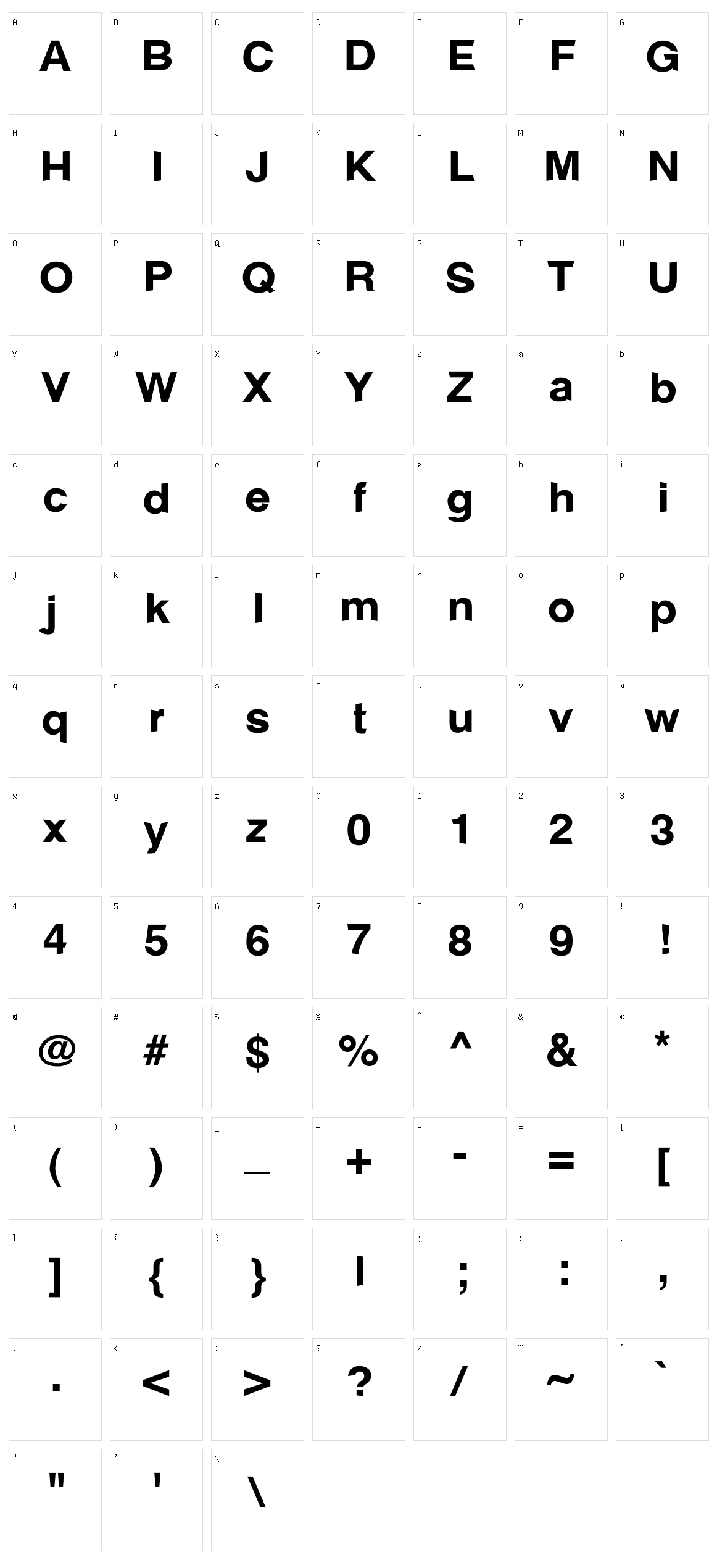
The free font Rayjoe is carefully designed by Joe Chau, showcasing a thoughtful balance of creativity and usability and falls under the Sans serif font style. When you download the ZIP file, it contains only 297.87 KB of font files, making it lightweight and quick to download. Please review the license details below to understand permitted usage and distribution rights. If license information is not available, we recommend using this font for personal projects only or contacting the author directly for commercial usage permissions.
Rayjoe is a font created by Joe Chau in 2014.